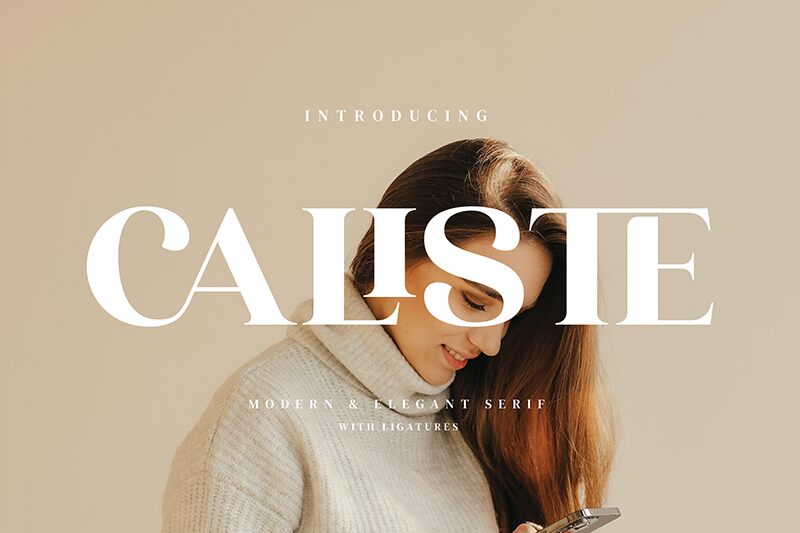
Caliste font is a bold serif font by Biham Santoso that blends elegance with sophistication within its smooth, straight characters. Its curved uppercase letters are all equally appealing for human and machine eyes, resembling the artist’s professional expertise. Caliste is refined, classic, professional, and capable of offering top-notch designs instantly.